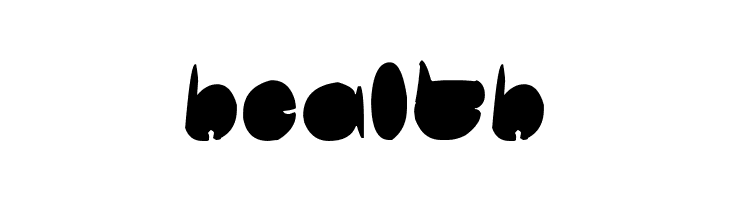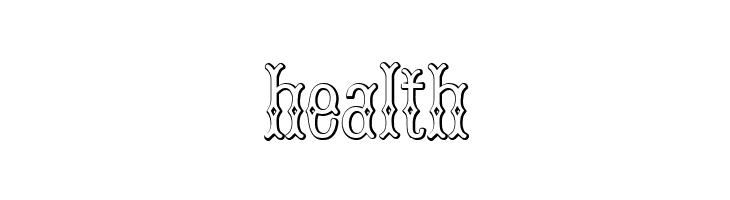
A bold, elegant script font with flowing curves and dynamic strokes.
A bold, decorative font with intertwined uppercase letters and elegant curves.
An elegant, vertically emphasized font with a classic calligraphic style.
A bold, brush-style font with high contrast and dynamic strokes.
A bold, geometric font with sharp, angular characters for impactful designs.
A bold, geometric font with a futuristic and artistic design.
A pixelated, retro-style font with a blocky, digital appearance.
A bold slab serif font with strong, block-like serifs and a vintage yet modern appeal.
A playful, handwritten-style font with bold, rounded strokes.
A playful, bold outline font with a hand-drawn aesthetic.
A modern, condensed sans-serif font with a clean and geometric design.
A playful and whimsical font with rounded, flowing strokes and a bold, artistic style.
A playful, bold font with rounded, flowing strokes and a whimsical design.
A bold slab serif font with strong, block-like serifs and a robust presence.
A playful, rounded font with a hand-drawn, whimsical style.
A bold and intricate Blackletter font with sharp, angular lines and dramatic flourishes.
A whimsical and playful font with bold, swirling characters.
A playful, bold font with rounded strokes and a whimsical, retro-modern style.
A bold, distressed font with a textured, vintage appearance.
An ornate and decorative font with intricate flourishes and embellishments.
A bold, geometric font with a futuristic and digital aesthetic.
A modern sans-serif font with clean lines and uniform strokes.